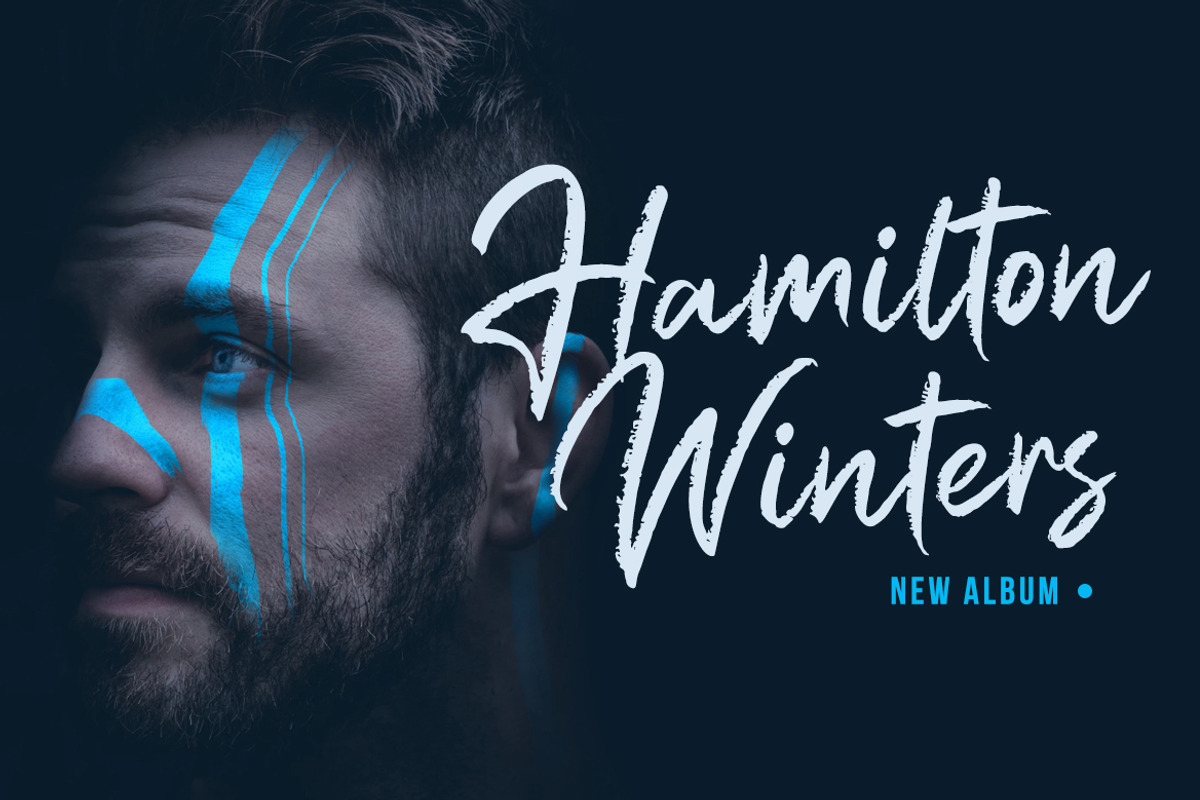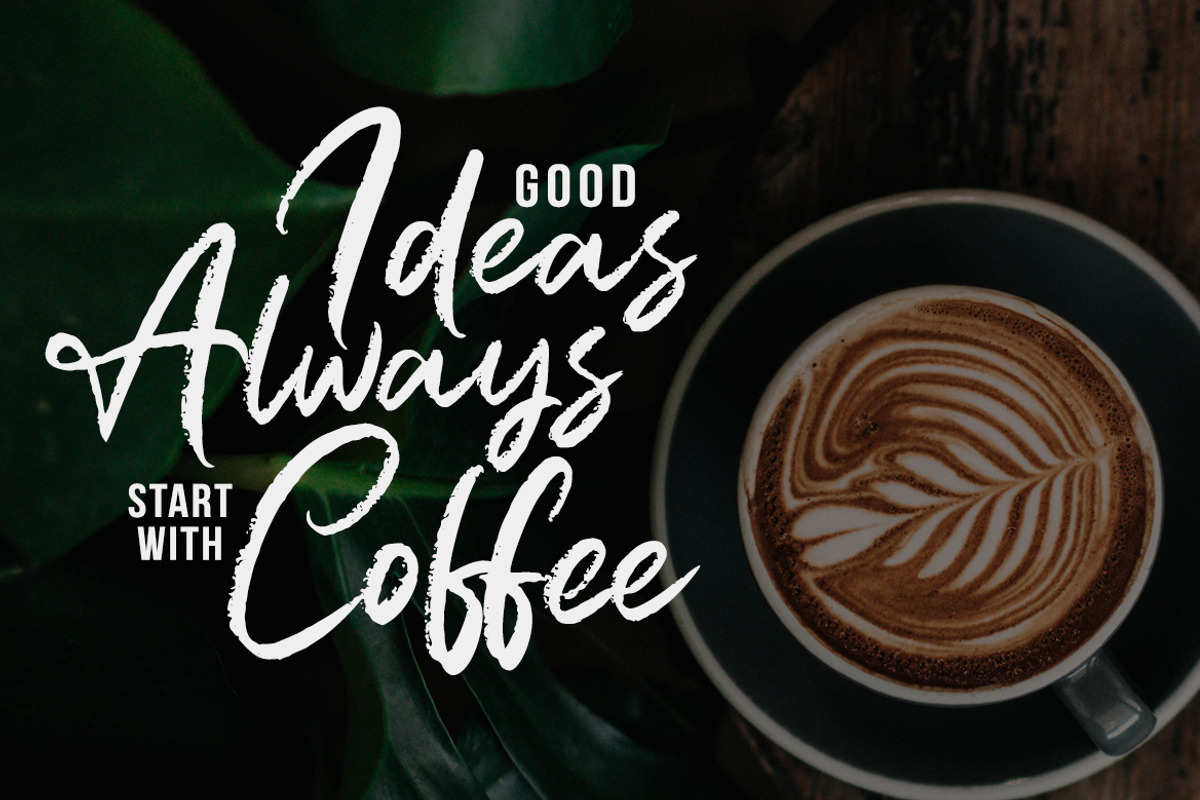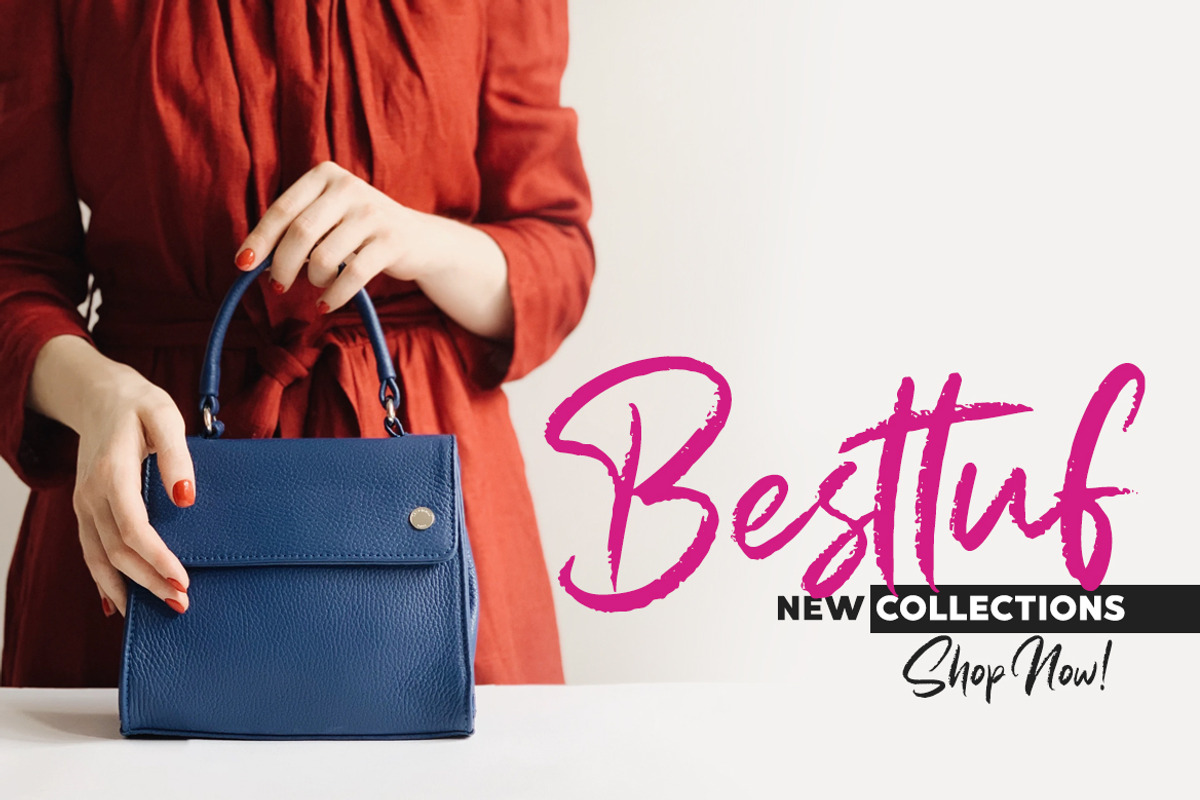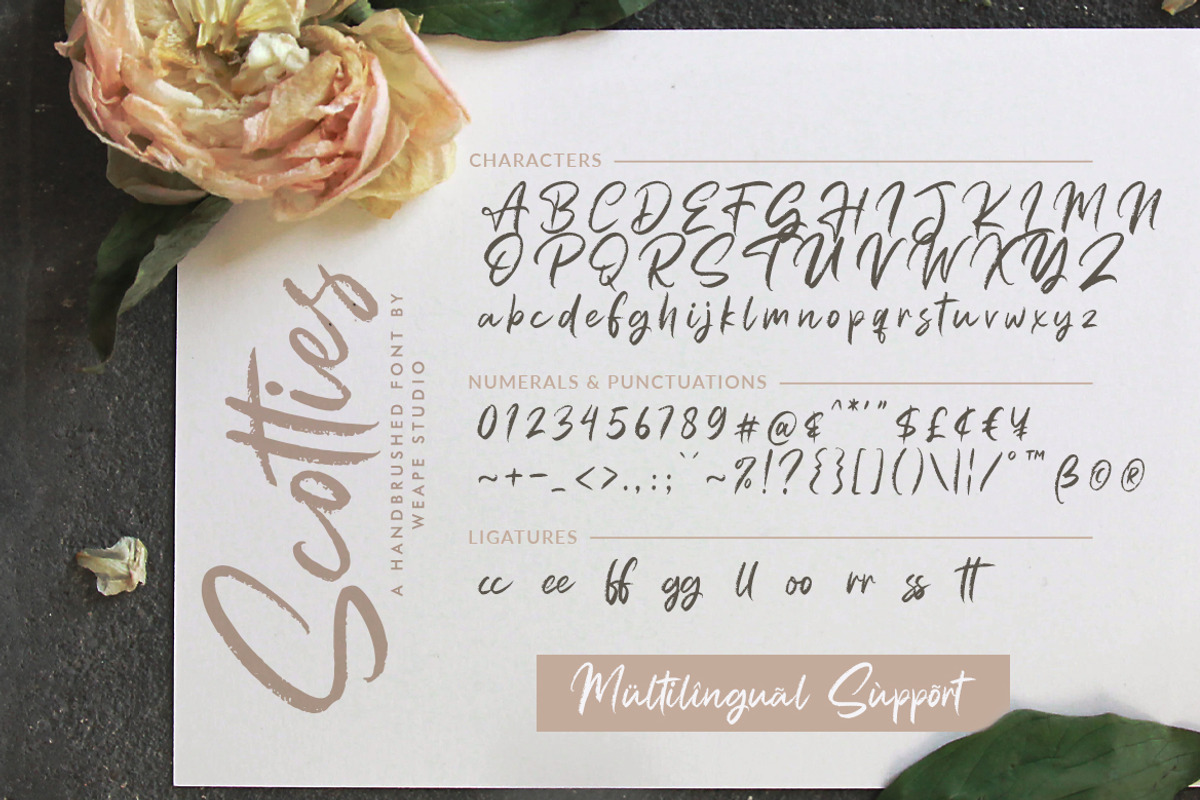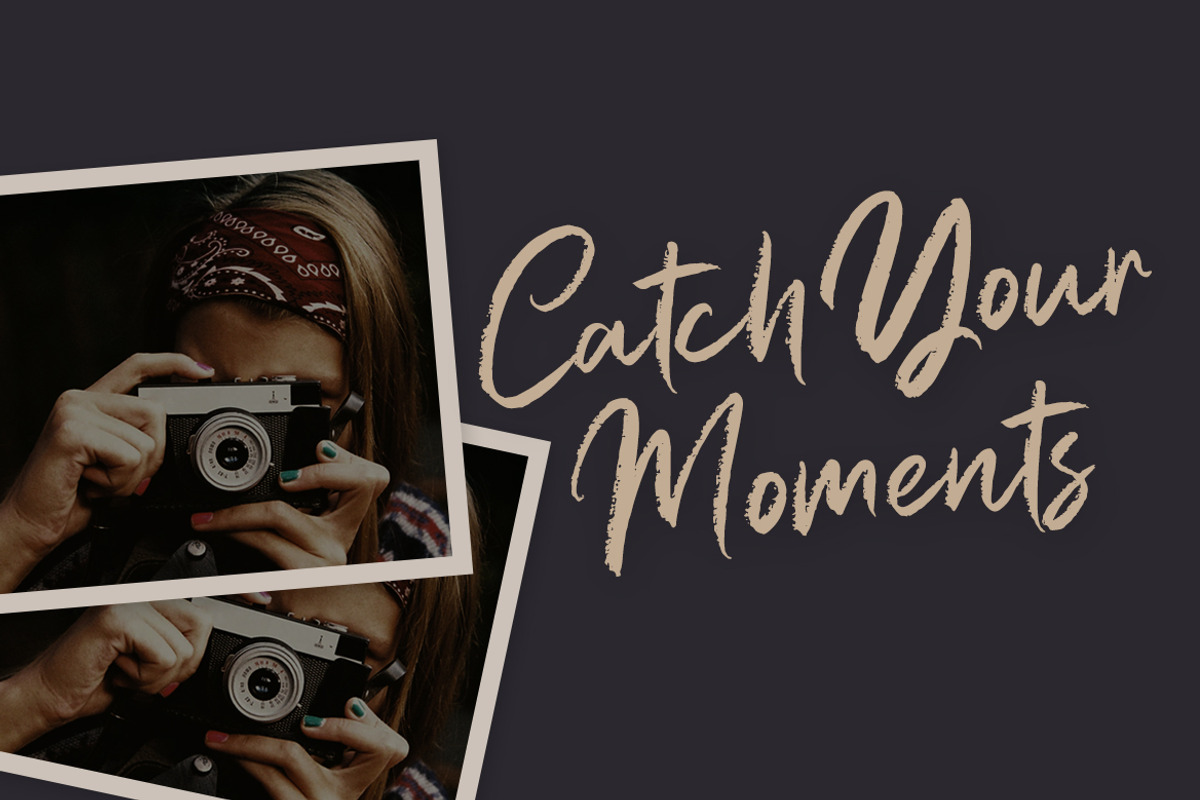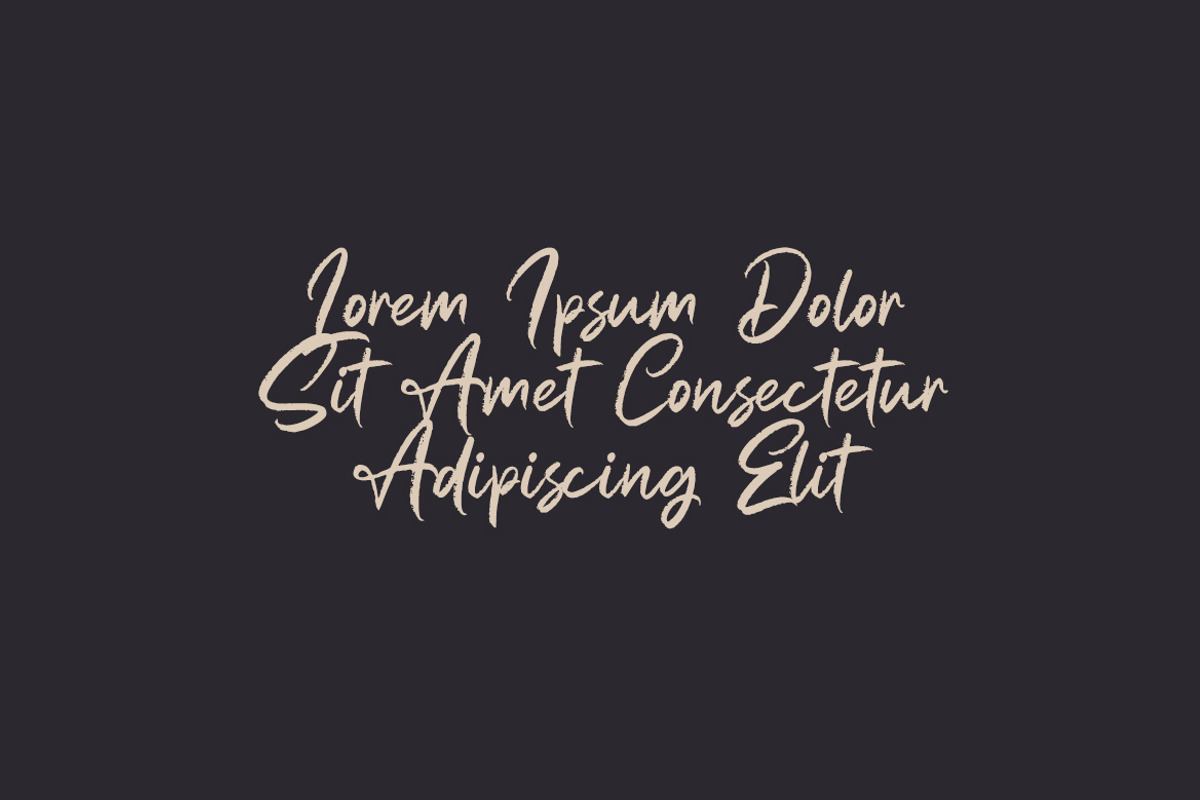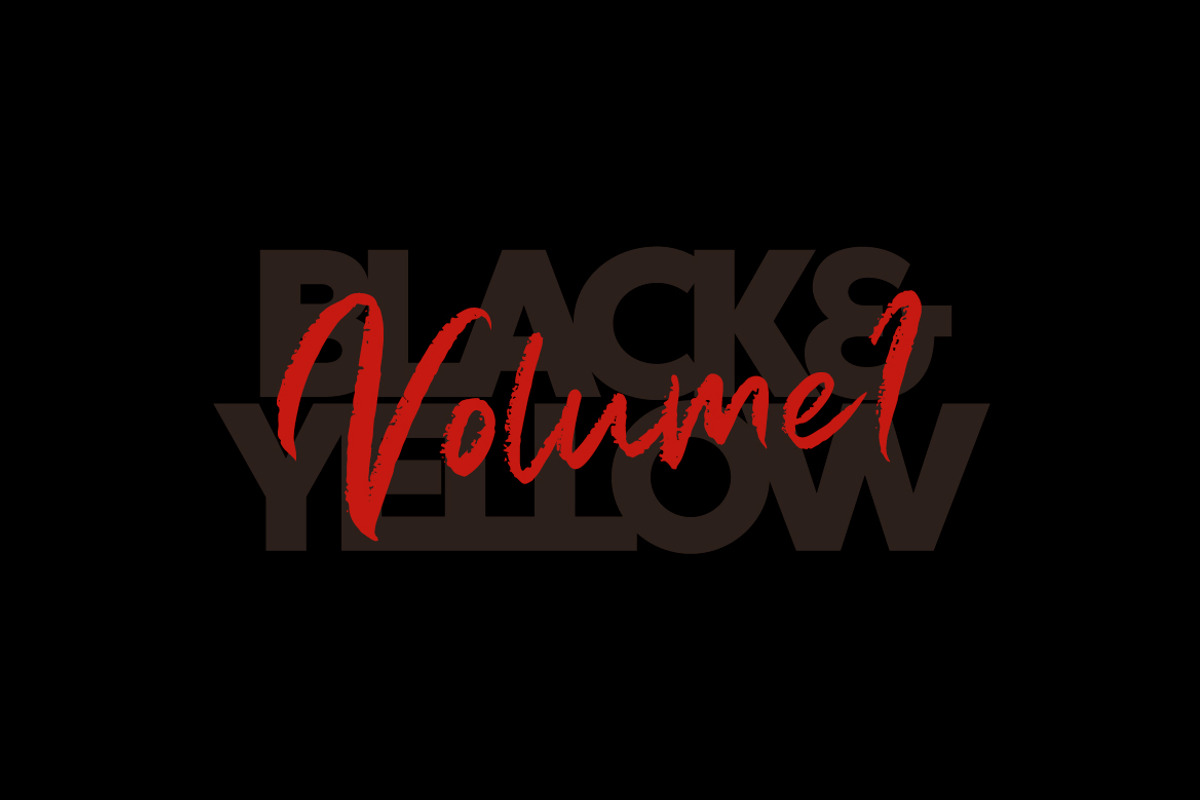
Scotties - Hand Brushed Font
Introducing Scotties Hand Brushed Font, script with natural dry brush strokes make it beautiful, and the stroke of hand quickly.
Scotties is perfect for signature, branding, wedding, fashion, photography title, poster, social media, ad banner, book cover, packaging, handwritten quotes, greeting cards, and advertising. You can create easily and make it as if you wrote it yourself.
All fonts containing upper & lowercase characters, numerals, ligatures and a large range of punctuation. With otf, ttf, woff and woff2 format.
- All fonts containing upper & lowercase characters, numerals, ligatures and a large range of punctuation.
- Scotties Regular
Scotties - Hand Brushed Font by Weape Studio fits naturally into Branding, posters, packaging, typography.